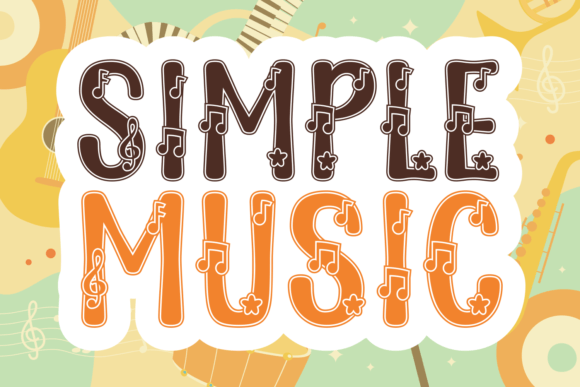
Introducing Simple Music Font, the ultimate choice for music enthusiasts seeking to add a touch of creativity and elegance to their projects. Crafted with meticulous attention to detail by the renowned font designer Andal from 7NTypes, this decorative font is ingeniously tailored to captivate the hearts of musicians and music lovers alike.
Let the rhythm of Simple Music Font amplify the harmony of your creations. With its captivating curves and enchanting glyphs, this font brings a symphony of creativity to your fingertips. Whether you're designing album covers, composing musical scores, or crafting personalized monograms for your Cricut projects, Simple Music Font is the perfect choice to showcase your passion for music.
Ignite your imagination and let your designs strike a chord with its unique personality. Simple Music Font harmonizes effortlessly with various design elements, allowing you to create stunning typography art that resonates with emotion. From posters promoting your next concert to digital invitations for music-themed events, this font will make your text dance to its own melody.
Unlock a world of endless possibilities as you explore the diverse range of characters within Simple Music Font. Each letter is meticulously crafted to evoke a sense of rhythm and melody, enabling you to convey the essence of your musical message. With its extensive collection of ligatures and alternates, you'll never run out of creative options to infuse your designs with a harmonious touch.
Embrace the power of Simple Music Font's versatility as you effortlessly bring your musical vision to life. Let the symphony of options guide you as you create unique monograms for Cricut projects, ensuring that every piece reflects your love for music. From elegant initials on personalized gifts to intricate patterns on apparel, this font adds a touch of sophistication that will leave a lasting impression.
Don't settle for the ordinary when you can embrace the extraordinary. Simple Music Font speaks the language of music, enveloping your designs with an aura of inspiration and creativity. Elevate your projects to new heights with this remarkable font, and watch as your work becomes a visual masterpiece that resonates with your audience.